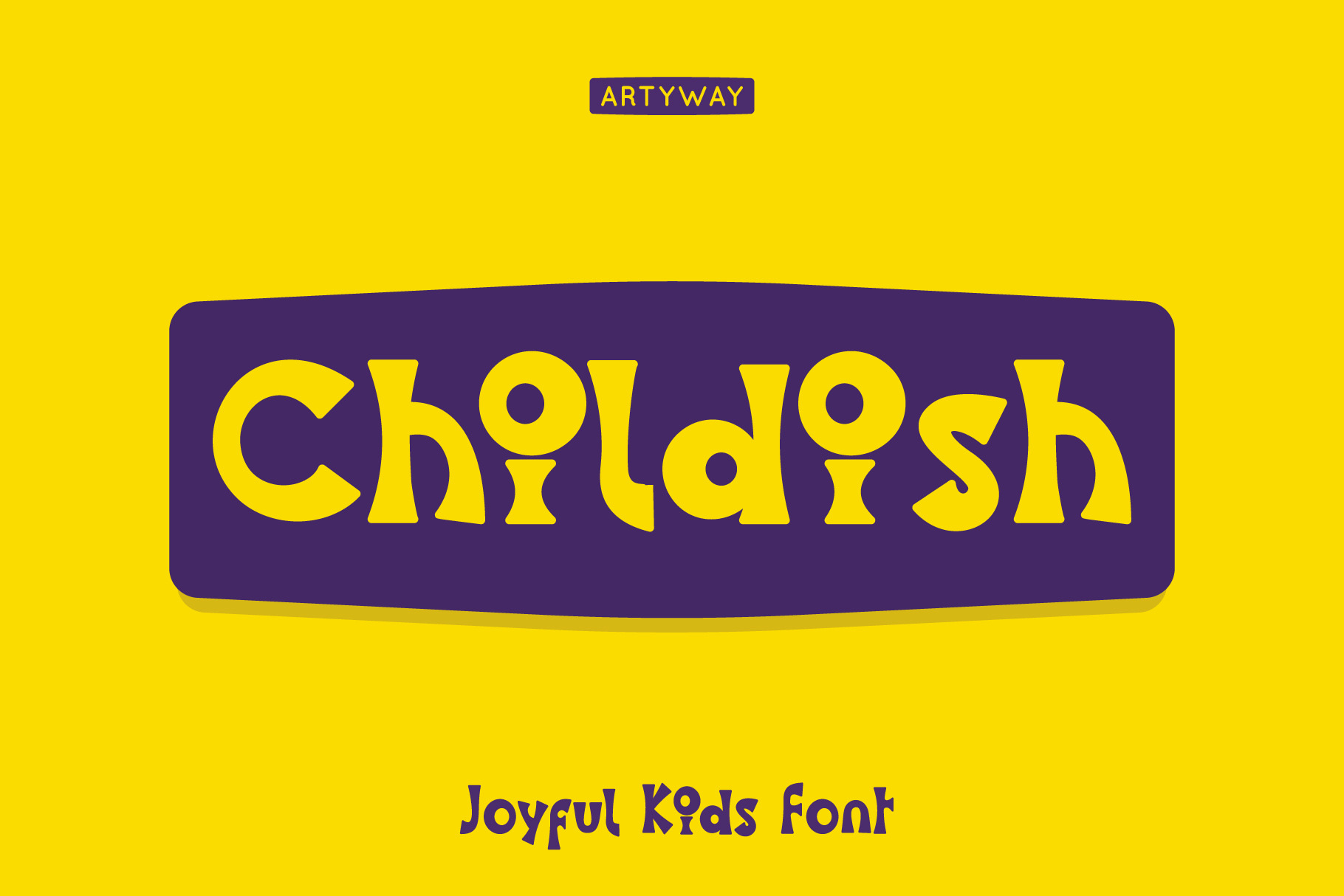
Childish Font
Childish Font – Fun and Cute for Playful Designs
Bring joy and imagination to your designs with the Childish Font, a whimsical and delightful typeface crafted for all things playful and creative. Perfect for children’s products and spaces, this font adds a touch of fun and charm to every project.
- Kids’ games and educational materials
- Storybooks and children’s toy packaging
- Playroom decorations and kids’ zones
- Birthday party invitations and banners
- Branding for children’s products
- Whimsical and playful letterforms
- Uppercase and lowercase letters
- Designed for vibrant, kid-friendly designs
Create magical and joyful designs with the Childish Font. Perfect for projects that need a cheerful and playful touch!